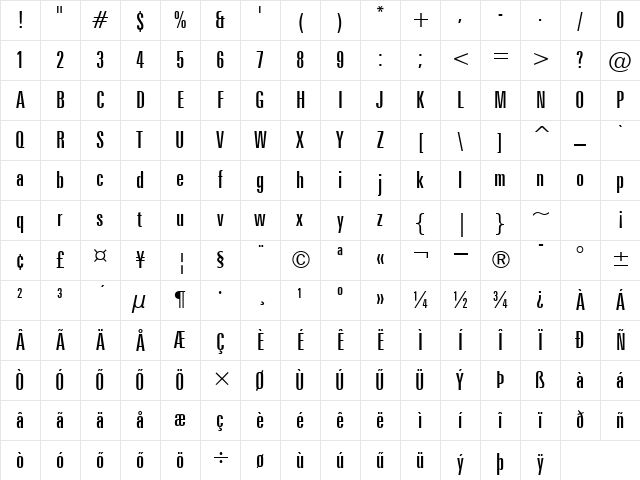
Hu_Zubrf Regular
Design Context for Hu_Zubrf
Hu_Zubrf is a composed and adaptable typeface that performs quietly and consistently across a wide range of design contexts.